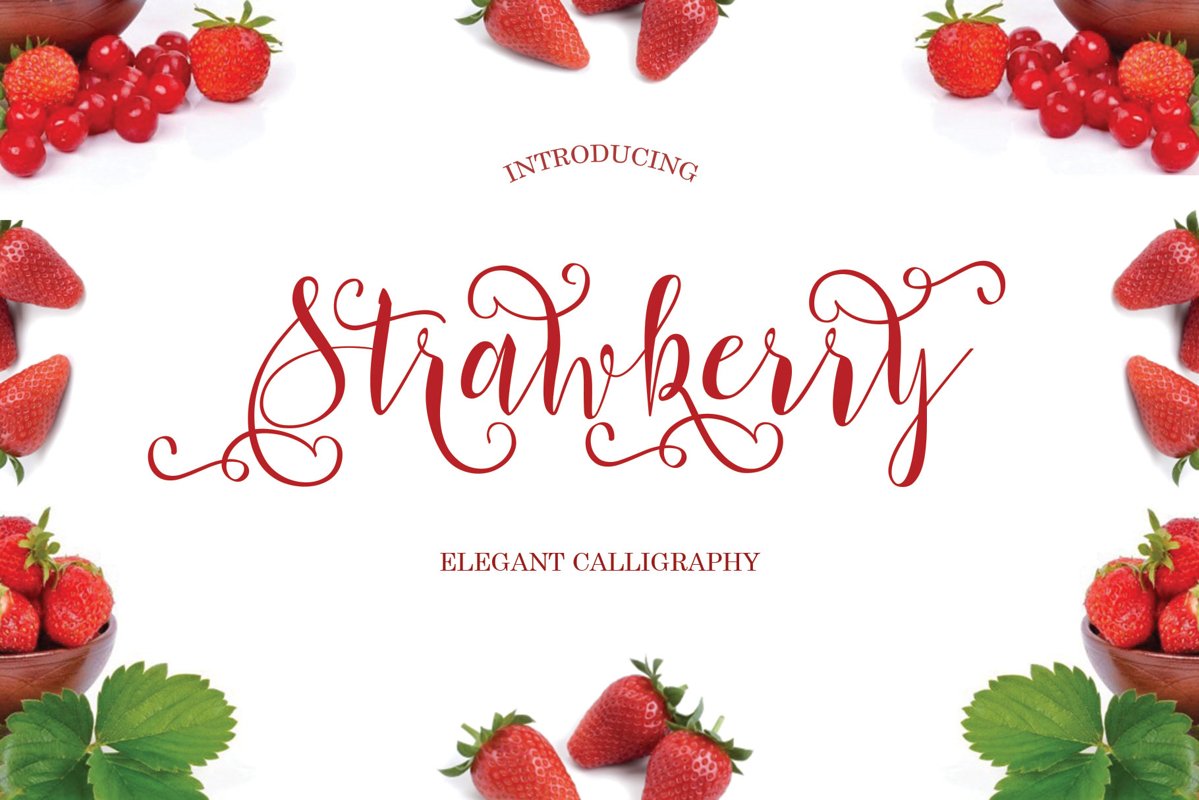
Strawberry
Introducing: Strawberry Script
A script font with a smooth handwritten style. Comes with 408 glyphs. Strawberry Script is perfect for branding projects, homeware designs, product packaging, use in name card, invitation cards, etc. Simply as a stylish text overlay to any background image or anything requiring a sprinkle of elegance.